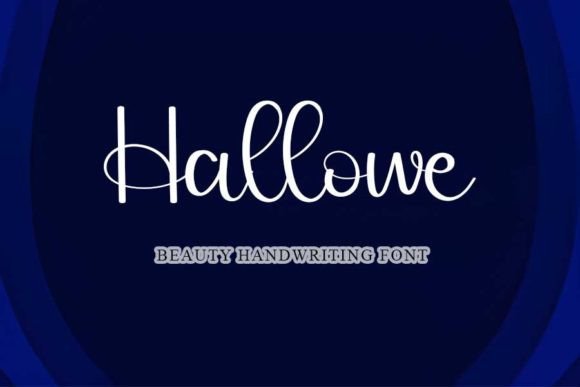
Introducing Hallowe Font, the enchanting script font family that captures the allure of handwritten elegance. Its delicate curves and swashes dance across your designs, creating a captivating visual symphony. Step into a world of creative expression with Hallowe, where your ideas take center stage.
Hallowe's essence lies in its versatility, effortlessly adapting to any project seeking a touch of sophistication. Whether you're crafting wall displays that speak volumes or designing wedding invitations that exude romance, Hallowe rises to the occasion. It's the perfect companion for your social media posts, adding a touch of personality to your brand. Unleash your creativity with Hallowe and transform your designs into masterpieces.
Hallowe's artistry extends beyond its versatility. It's a font that resonates with the human touch, evoking a sense of connection and authenticity. In the realm of business forms, Hallowe shines as a beacon of professionalism. It elevates your documents, adding a touch of grace and sophistication that commands attention. With Hallowe, your business communication stands out from the mundane, leaving a lasting impression.
But Hallowe's allure doesn't stop there. It's a font that speaks to the heart, adding a touch of warmth to your creative endeavors. Whether you're crafting advertisements that captivate audiences or designing product packaging that entices customers, Hallowe weaves a spell of enchantment. It's the perfect choice for creating labels that demand attention and photography that tells a story.
Hallowe's versatility knows no bounds. It's the perfect font for adding a personal touch to your watermarks, ensuring your creations leave an indelible mark. It graces invitations and stationery with a timeless elegance, making every occasion a cherished memory. No matter the project, Hallowe elevates your designs, turning them into works of art.